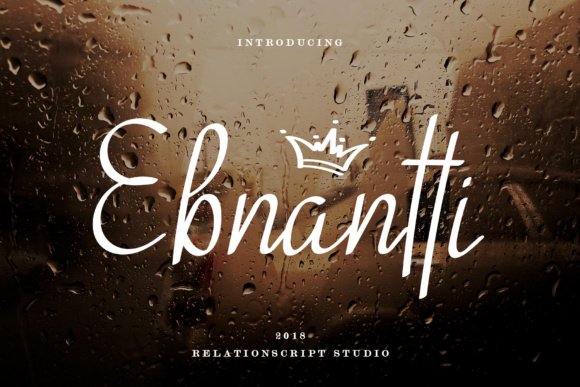
The Art of Elegant Typography: Ebnantti Script Font
There’s something magical about the moment when a design idea clicks – the rush of creativity, the spark of inspiration, and the excitement of bringing it to life. For designers, this moment is what drives us to push the boundaries of beauty and functionality. And, when it comes to creating captivating visual stories, typography plays a crucial role.
Enter Ebnantti Script Font, a stunning script font that adds a touch of hand-drawn elegance to any design. Whether you’re working on editorial design, book covers, posters, or special event materials, Ebnantti Script Font is the perfect choice to give your project a unique, handwritten feel.
This beautiful font is a valuable addition to any designer’s toolkit, offering a wide range of applications and endless possibilities for creativity. With Ebnantti Script Font, you’ll be able to convey emotion, tell a story, and connect with your audience on a deeper level – making it an essential element in your design arsenal.
Ebnantti Script Font Key Features
- Font Size: Designed to be versatile, Ebnantti Script Font is available in 4 font sizes: Regular (400), Medium (500), Bold (700), and Extra Bold (900).
- Resolution: Compatible with high-resolution displays, making it perfect for use in digital media and print materials.
- Unique Characteristics: Features a beautiful, elegant script style with flowing connections and subtle flair, ideal for creating a sophisticated and professional look.
- Language Support: Supports a wide range of languages, including Latin, Cyrillic, and Greek scripts, making it a great choice for international designs.
- Kerning and Glyphs: Includes advanced kerning and glyph sets, ensuring that the font looks polished and refined in a variety of settings.
Ebnantti Script Font Review
First of all, I want to say that I’m impressed by the elegant and refined feel of Ebnantti Script Font. ✨ The subtle connections between letters make it perfect for adding a touch of sophistication to any design. ✨ The font’s fluidity and organic feel also make it suitable for hand-written or calligraphic style designs.
- Highly legible, even at smaller font sizes
- Works well for headings, titles, and body text
- Supports a wide range of languages
- Can be used for both formal and informal designs
However, there are a few limitations to consider. ⚠️ The font may not be suitable for highly technical or complex text, as the connections between letters can make it difficult to read. ⚠️ Additionally, the font may not be as customizable as some other script fonts, which could be a limitation for designers who want a high degree of control over their typography.
Overall, I think Ebnantti Script Font is a great choice for designers who want to add a touch of elegance and sophistication to their designs. While it may not be the best choice for every project, it’s definitely worth considering for designs that require a refined and high-end feel.
Getting the Most Out of Ebnantti Script Font
To get the most out of Ebnantti Script Font, use it for:
- Handwritten-style quotes and phrases
Ebnantti Script Font is ideal for:
- Creating a whimsical and elegant look
- Adding a touch of personality to your designs
- Creating a cohesive brand identity
Belluccia Script is a beautiful, elegant script font ideal for wedding invitations, branding, and any other design that requires a touch of sophistication. Its flowing lines and soft curves make it perfect for creating a romantic and luxurious atmosphere. Compared to Ebnantti Script Font, Belluccia Script has a more refined and delicate look, making it suitable for high-end designs.